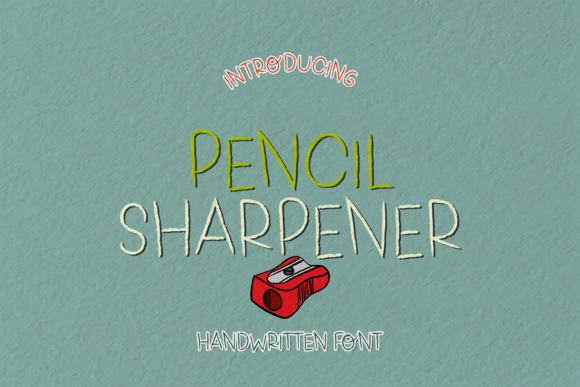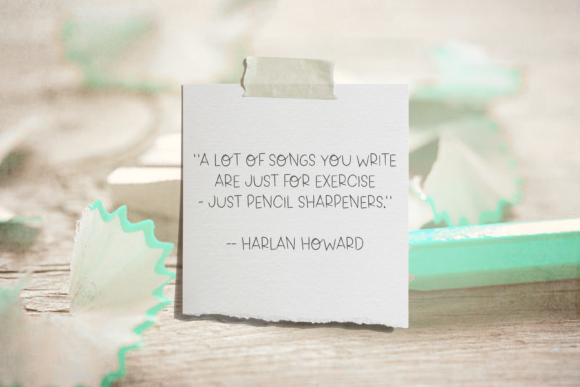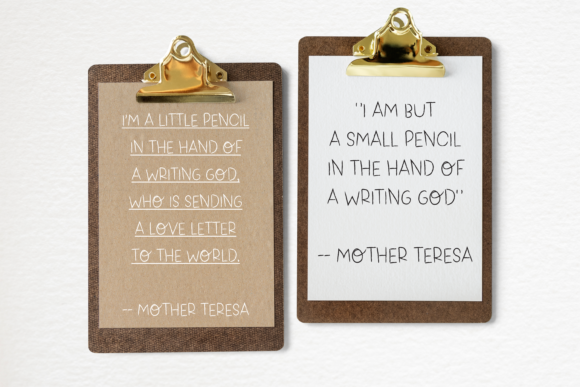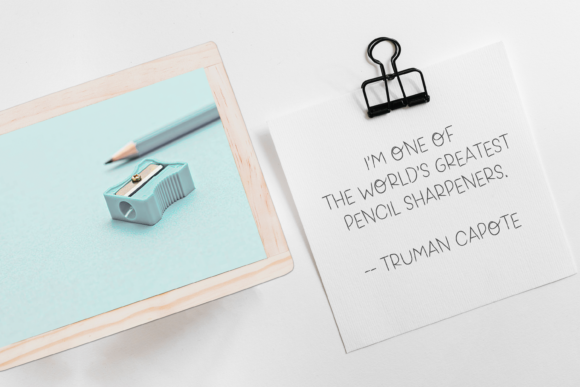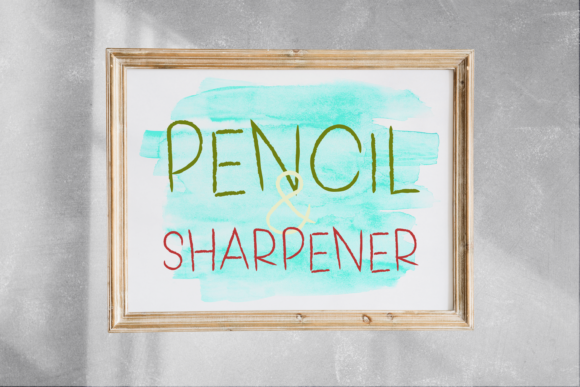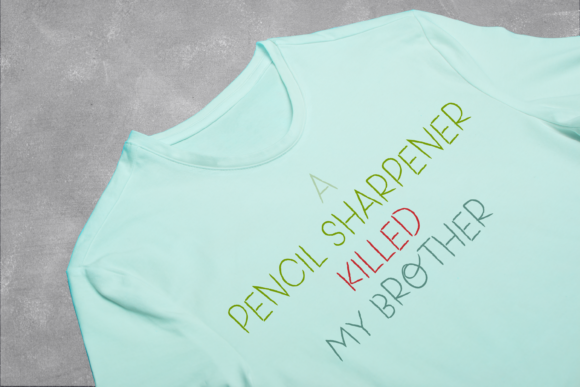
Pencil Sharpener Font
About Pencil Sharpener Font
Pencil Sharpener is a simple and childlike handwritten font. Get inspired by its incredibly youthful feel. Use it to turn any design project into a standout!